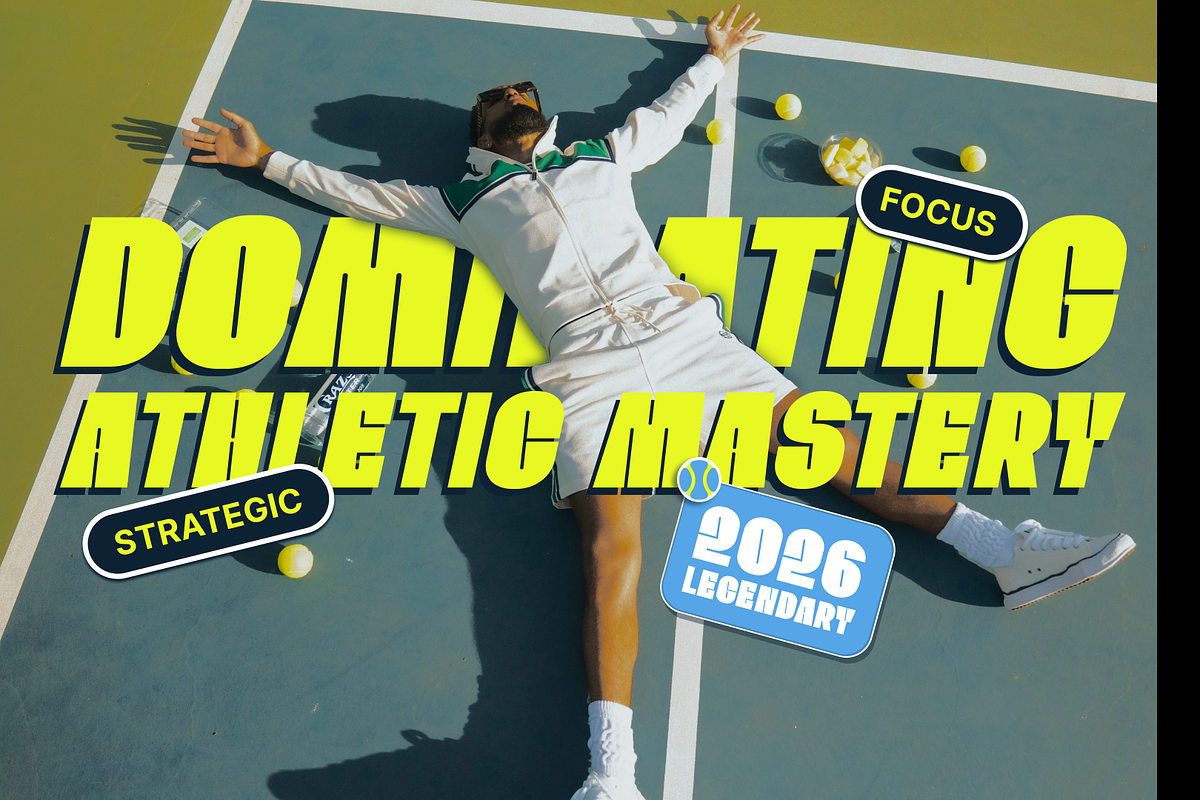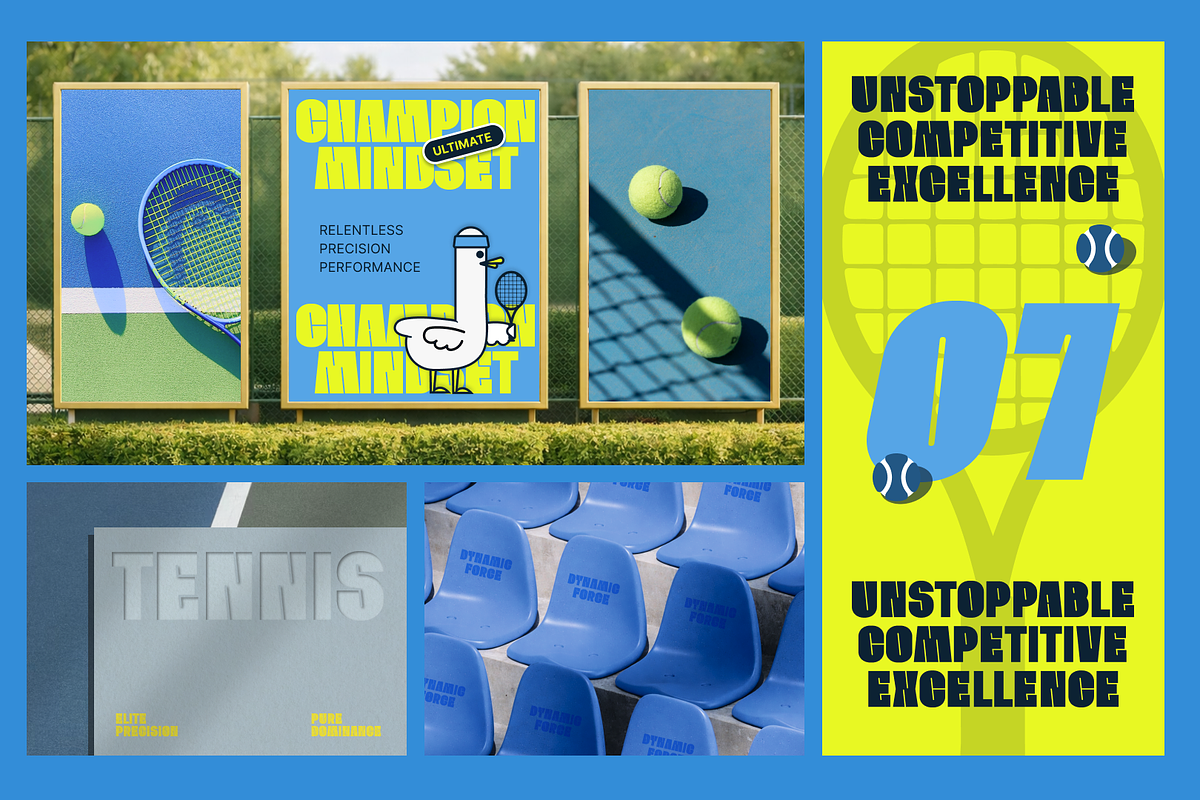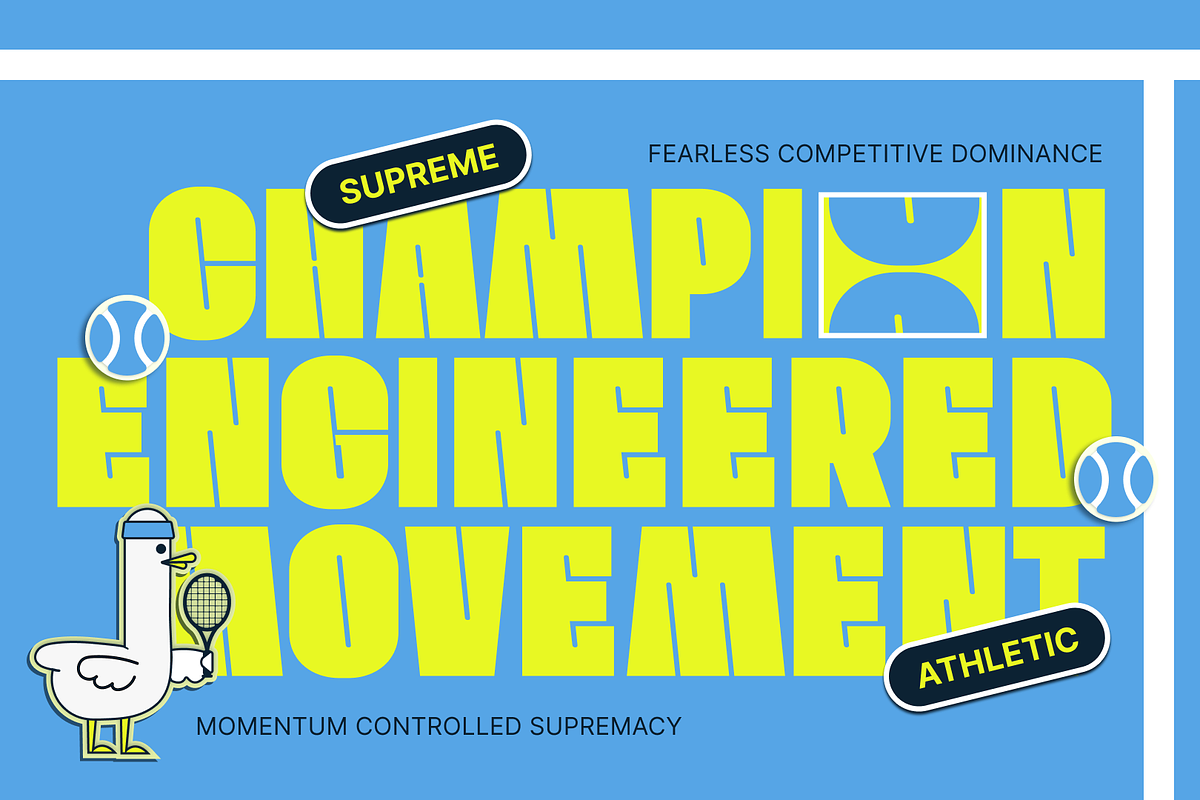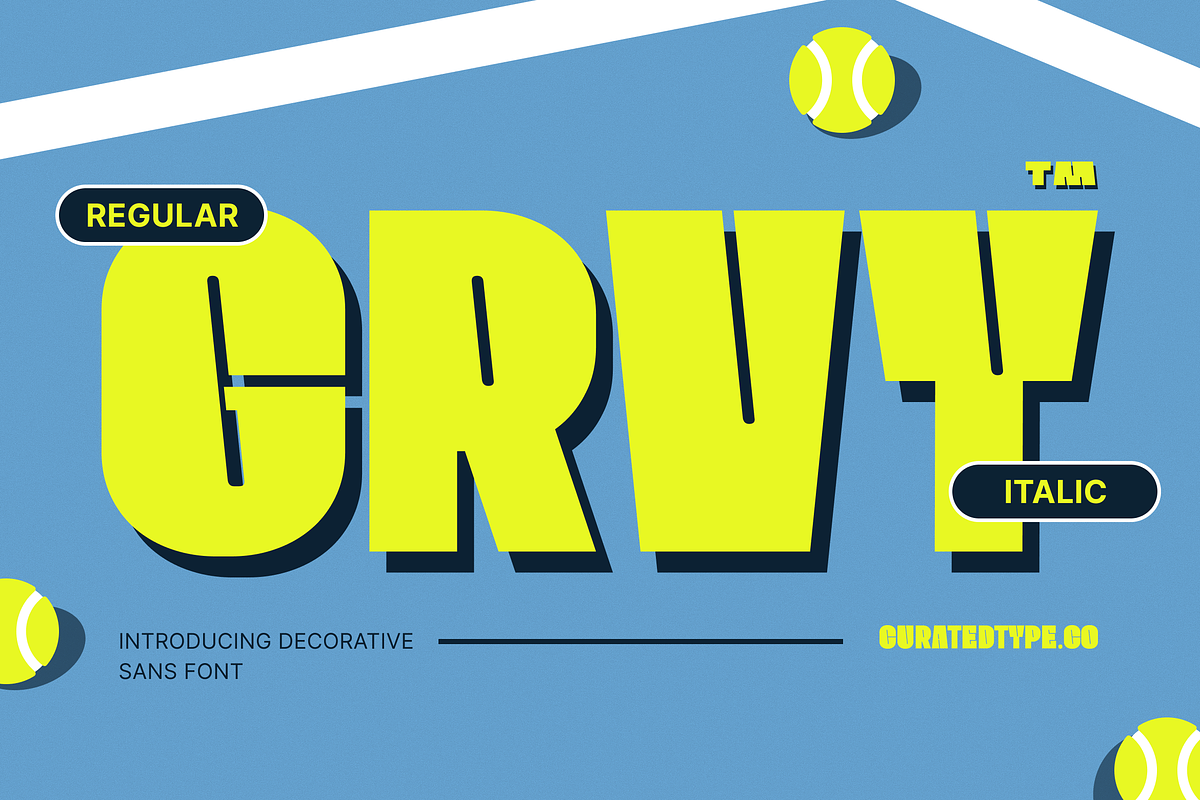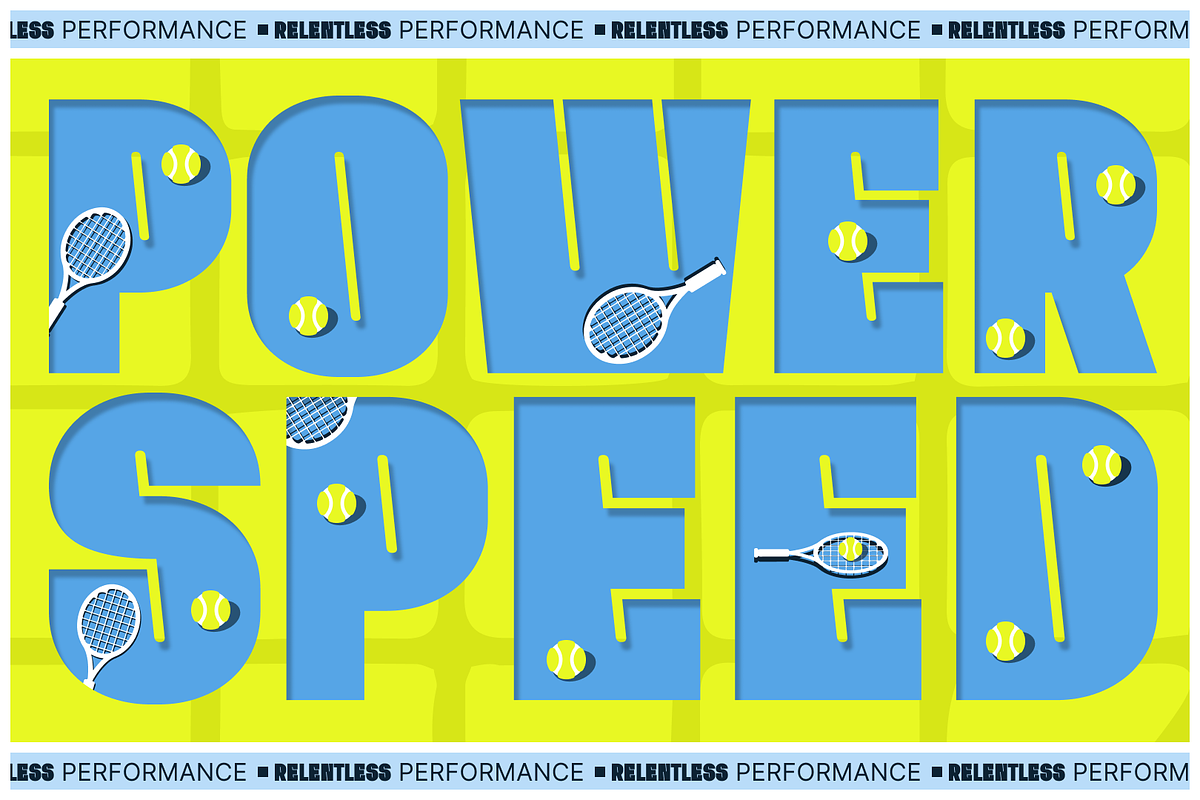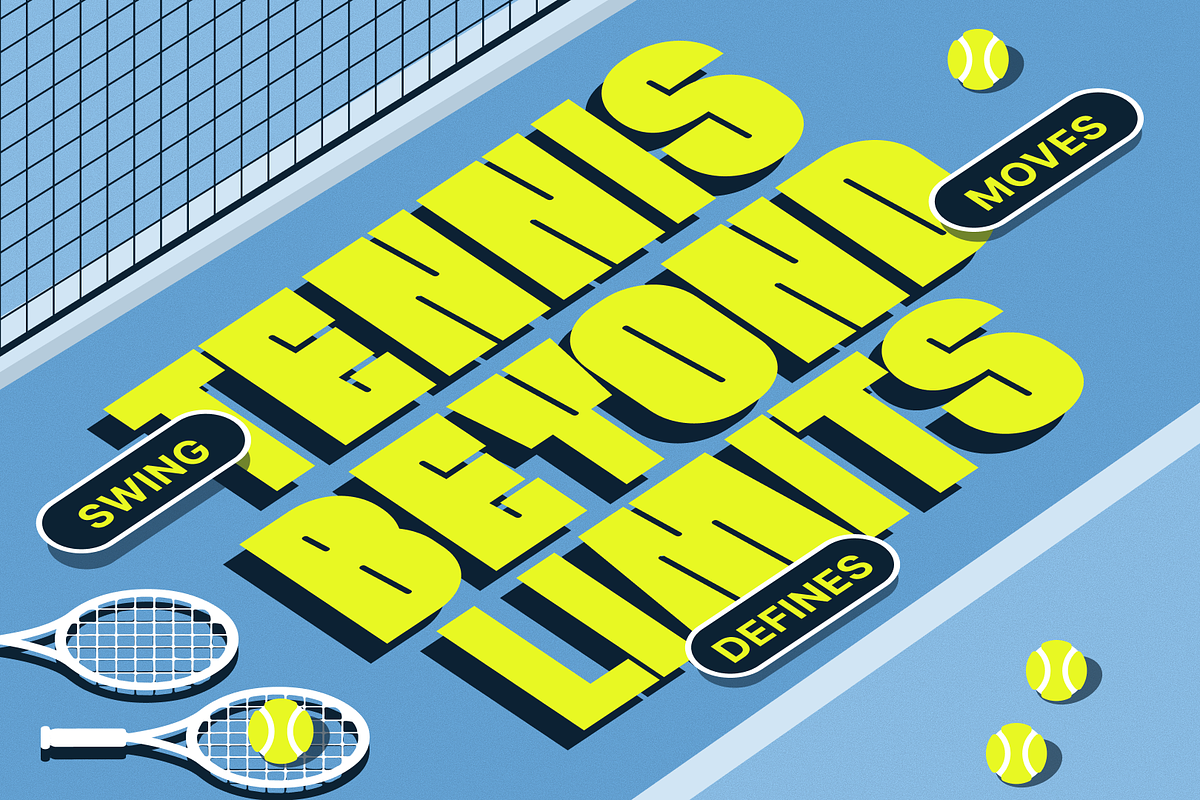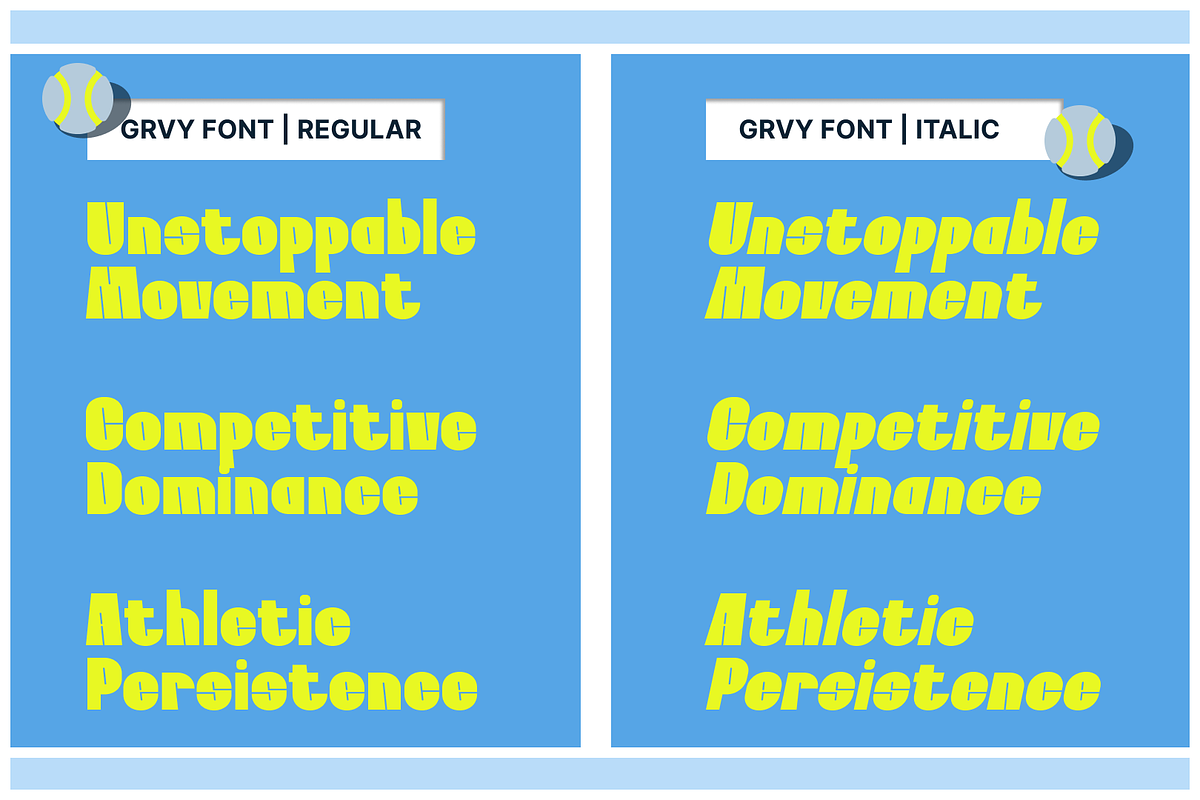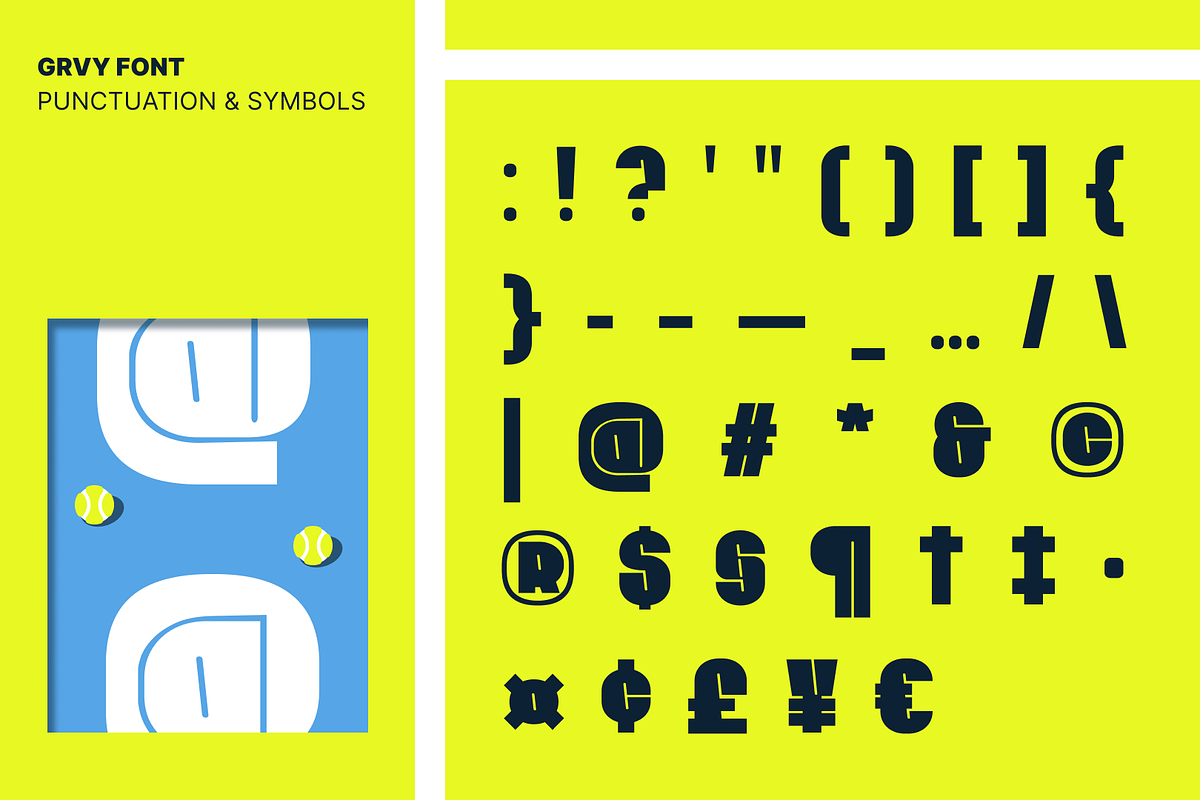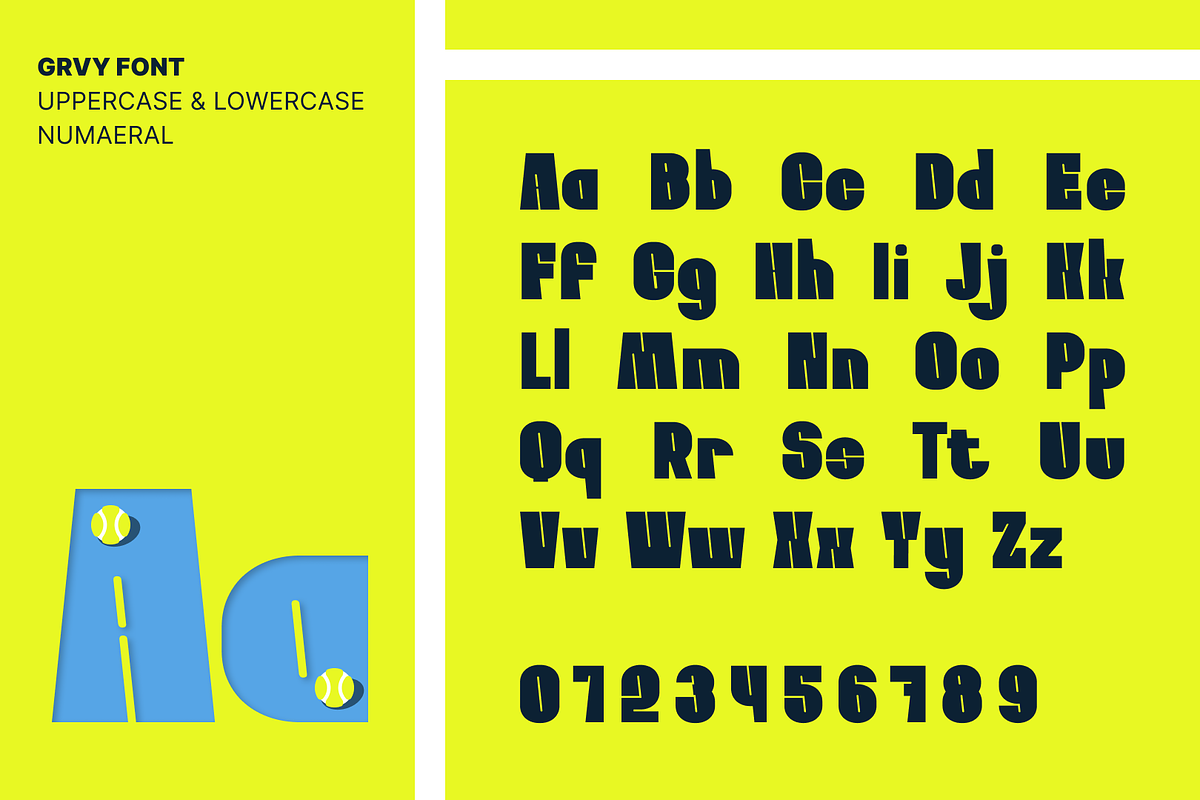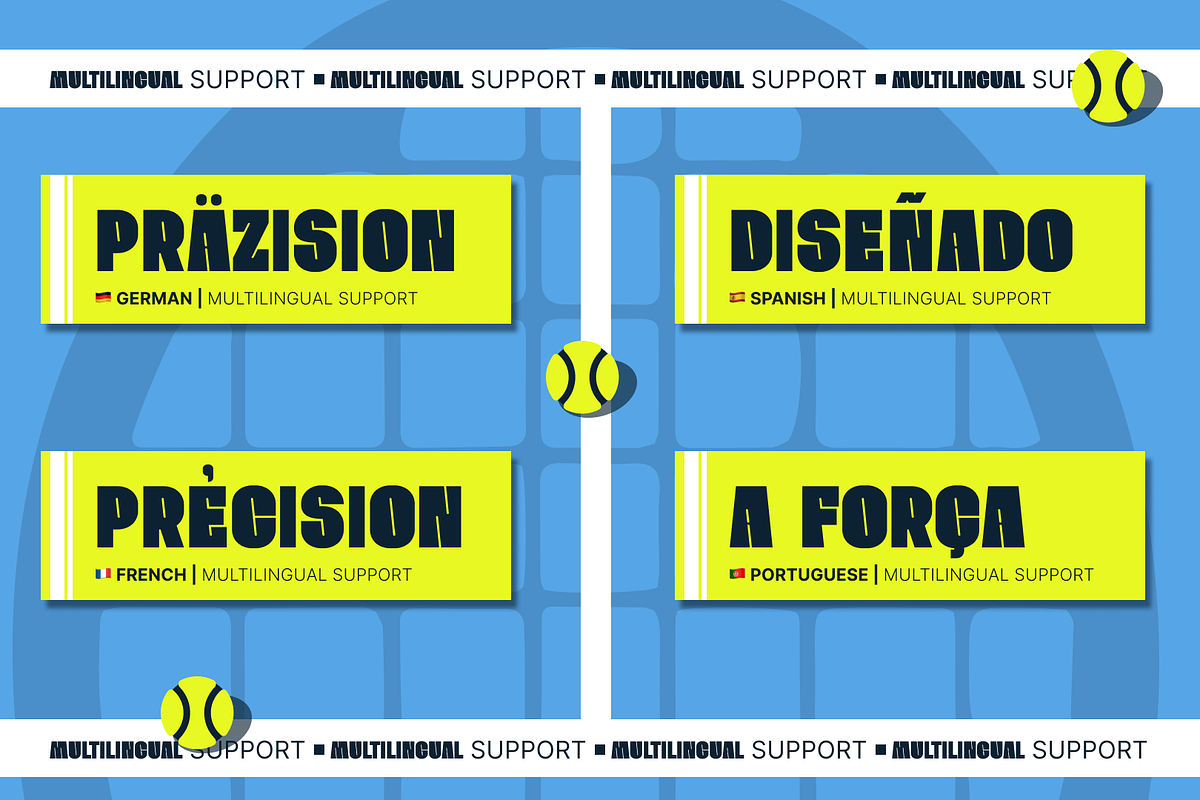
GRVY
Turn up the volume on your designs with GRVY. This isn't just a typeface; it’s a graphic powerhouse designed to dominate the page. Grvy captures the rebellious spirit of retro funk and fuses it with the sharp, uncompromising edge of modern street aesthetics. With its "liquid" structure and massive weight, every letter feels like it was poured rather than typed. It creates a hypnotic, rhythmic pattern that transforms standard words into instant custom lettering.
Built for the bold and the brave. GRVY is the ultimate tool for designers looking to break the mold. It thrives in large formats—think oversized poster headers, album covers, product graphics, and edgy social media assets. While it carries a heavy vintage soul, its clean vector curves make it perfectly adaptable for contemporary branding. When standard bold fonts aren't enough, use GRVY to make a statement that sticks.
- 2 Styles Font : Regular, Italic
- Standard letter A-Z and a-z
- Numeral, Symbol, and Punctuations
- OpenType Feature
- Over 900 glyphs